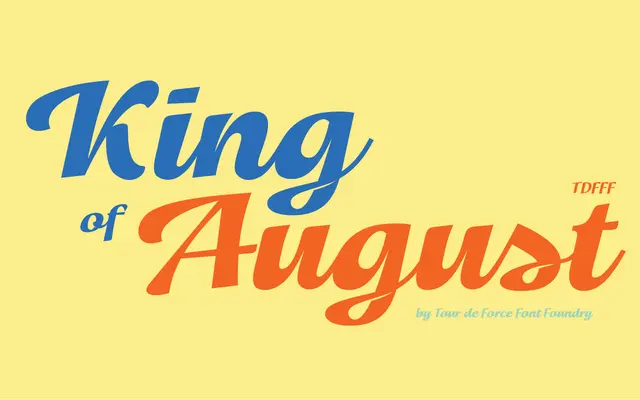
King of August
Tour de Force · Dušan Jelesijević · 2022
A single-weight formal script by Dušan Jelesijević, released in 2022, with swash alternates suited to product labels and short-form display work.
Designed by Dušan Jelesijević and published in April 2022, this script carries a refined, flowing quality that suits packaging, product names and title treatments. The family ships as a single Regular style with 404 glyphs, standard ligatures and OpenType swash variants for selected capitals. Extended Latin coverage spans 102 languages.
A single-weight connected script with elegant letterforms and swash alternates, consistent with formal or calligraphic script tradition.